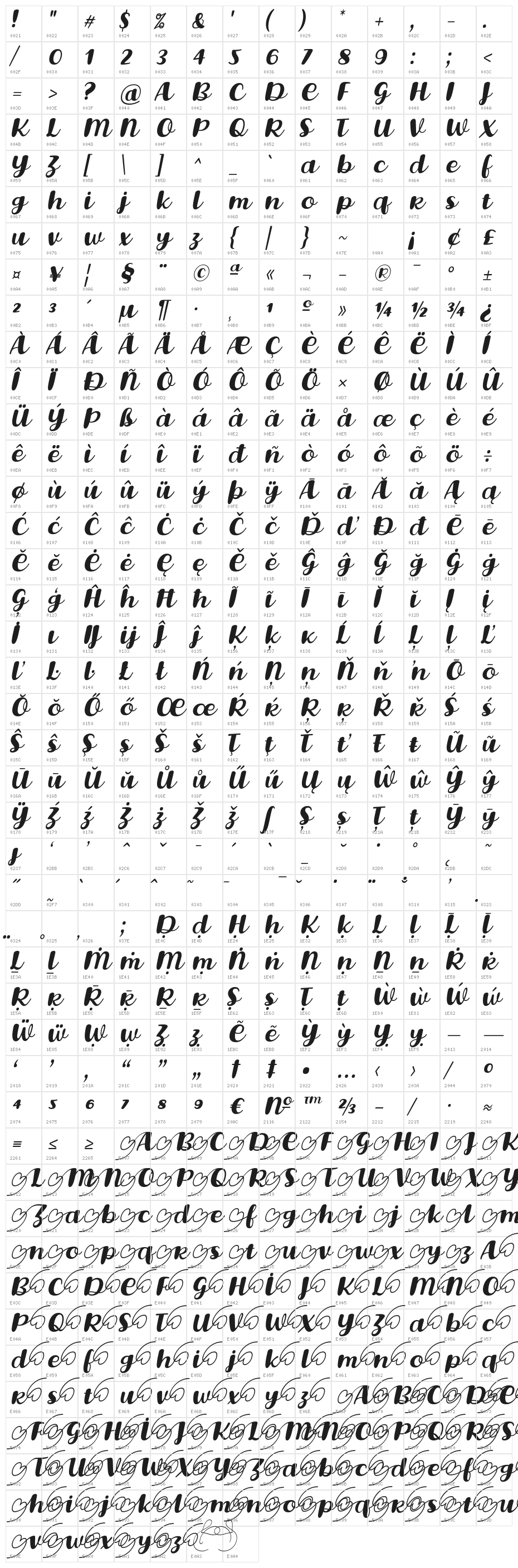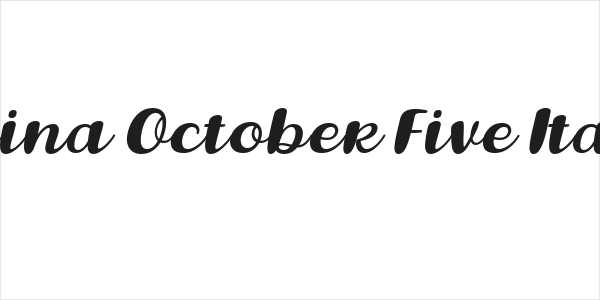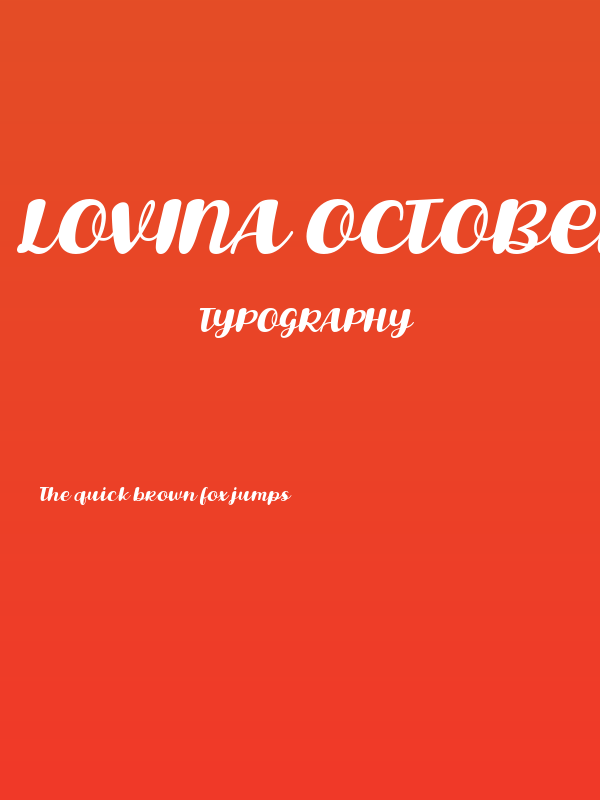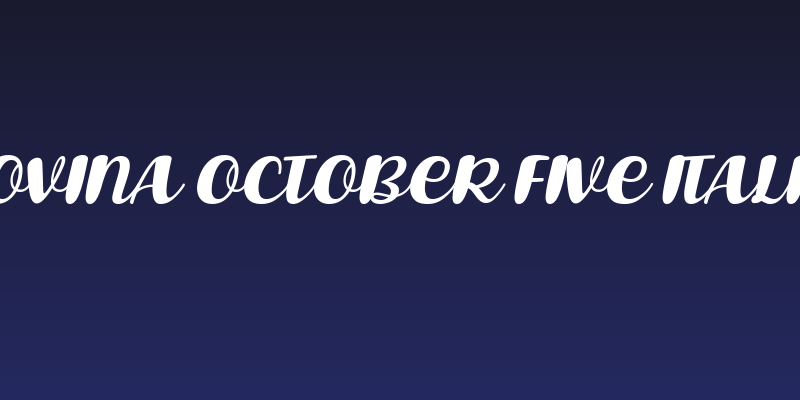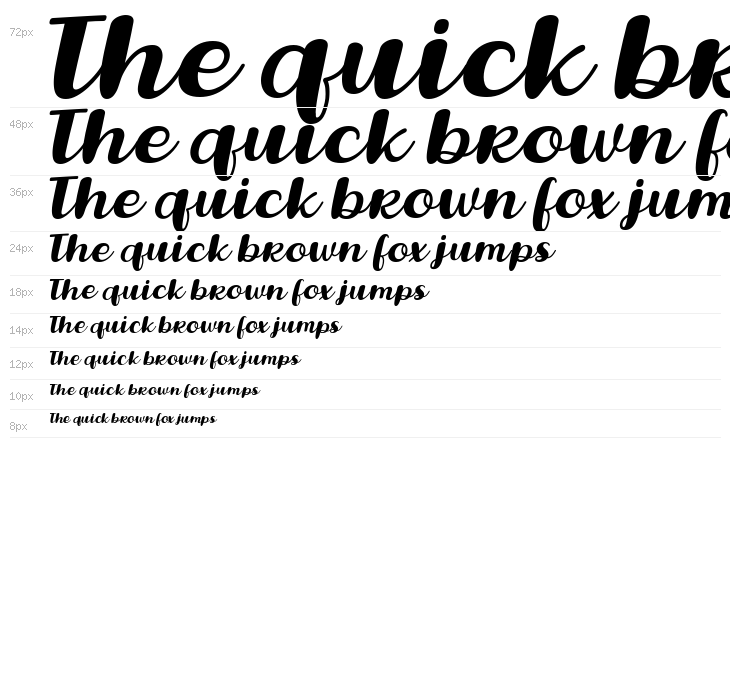
Lovina October Five Italic Font
Lovina October Five Italic Description
This font features a stylish and flowing script design, characterized by its elegant curves and smooth connections between letters. The uppercase letters exhibit a graceful flair, while the lowercase letters maintain a consistent rhythm, enhancing readability. The numerals are bold and distinct, complementing the overall aesthetic. Special characters are thoughtfully integrated, maintaining the font's cohesive look. This typeface exudes a sense of sophistication and creativity, making it suitable for a variety of design applications.
| Overall Style | Elegant and Creative |
| Proposed Projects | Ideal for wedding invitations, branding projects, greeting cards, and elegant logos. |